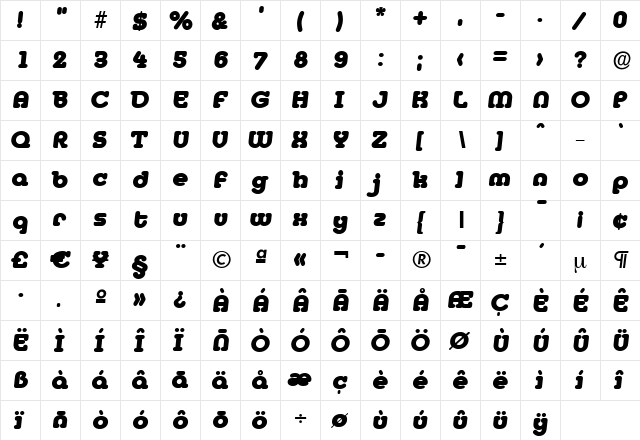
DesireeBecker-Heavy Italic Font Preview
DesireeBecker-Heavy Italic
DesireeBecker-Heavy Italic Font Details
Design Context for DesireeBecker-Heavy Typeface
DesireeBecker-Heavy is a composed and adaptable typeface that performs quietly and consistently across a wide range of design contexts. The slanted form adds forward momentum and visual energy.
Pro Tip: Try DesireeBecker-Heavy for annotation and caption copy alongside an upright companion — the contrast in angle creates a dynamic but ordered typographic system.